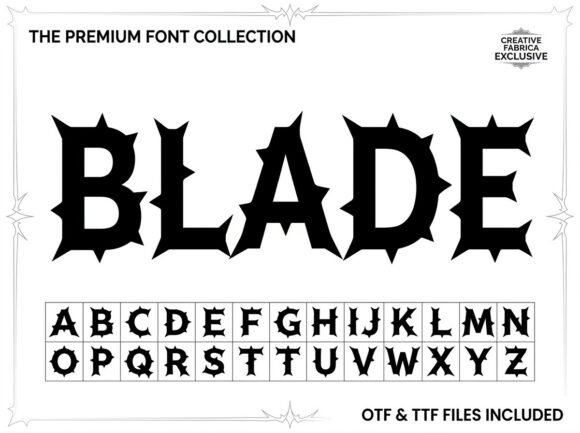
The Ultimate Display Font: Unleashing the Power of Blade Font
As a designer, I’ve had my fair share of frustrating moments while working on a project. I recall one particular instance where I was struggling to find the perfect font for a luxury packaging design. The client wanted something bold, yet elegant, and I was determined to deliver. That’s when I stumbled upon the Blade Font, an avant-garde decorative display font that instantly caught my attention. In this article, I’ll share my experience with Blade Font, its features, and how to make the most of it in your designs.
A Personal Encounter with Blade Font
I was working on a luxury packaging project for a high-end fashion brand. The client wanted a font that would make their brand stand out, something that would exude sophistication and elegance. After hours of searching, I came across Blade Font, and it was love at first sight. Its commanding visual personality and unique artistic flourishes made it the perfect fit for the project. I was impressed by its high-end, polished finish, which made it suitable for luxury packaging as well as experimental editorial layouts.
What Makes Blade Font Special?
Blade Font is an all-caps display typeface, carefully crafted to be the focal point of any composition. Here are some of its key features:
• ✨ Advanced layout features for professional design software
• ✅ High-end, polished finish
• ✅ Unique artistic flourishes
• ✅ Commanding visual personality
• ✨ The font’s unique artistic flourishes add a touch of sophistication to any design
• ✅ The high-end, polished finish makes it perfect for luxury packaging and editorial layouts
• ✅ The font’s commanding visual personality makes it perfect for headlines and titles
• ⚠️ As an all-caps font, it may not be suitable for body text or paragraphs
• 🤔 Some users may find the font’s unique features overwhelming or too bold for certain designs
The Designer Inspiration Behind Blade Font
The story behind Blade Font is one of creativity and experimentation. The designer, inspired by the world of luxury and fashion, set out to create a font that would capture the essence of high-end design. Through a process of trial and error, the designer crafted a unique and artistic font that would make a statement in any composition.
Q: What is Blade Font?
A: Blade Font is an avant-garde decorative display font designed for creators who refuse to blend in.
Q: Is Blade Font suitable for body text?
A: As an all-caps display font, Blade Font may not be suitable for body text or paragraphs. It’s best used for headlines, titles, and other display purposes.